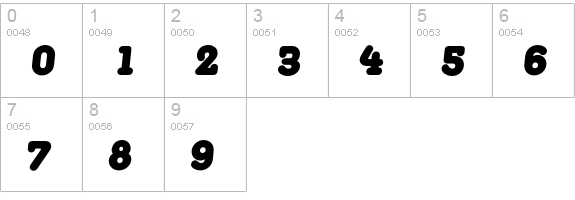
Media-ExtraBoldIta Font Details
Media-ExtraBoldIta is a striking and bold italic font that commands attention with its strong presence and unique style. This font exudes confidence and modernity, making it a perfect choice for design projects that require a bold statement. Its sleek and futuristic design sets it apart from other fonts, making it a standout choice for headlines, logos, and branding materials. What makes Media-ExtraBoldIta even more appealing is that it is available for free download at FontsMarket.com. This means that you can easily access and use this eye-catching font in your projects without any cost. Whether you are a professional designer looking to add a new dimension to your work or a hobbyist seeking to enhance your projects, Media-ExtraBoldIta is a versatile font that will elevate your designs to the next level. Download it today and unleash your creativity with this stunning and impactful typeface.